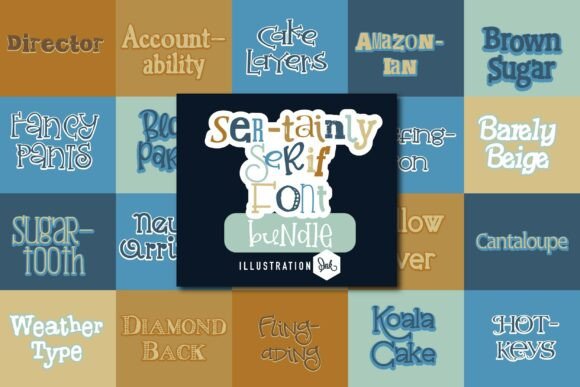
Sertainly Serif for Branding Projects
I was staring at a blank brand board the other day, trying to find that perfect font that would capture the essence of a new local café. The client wanted something warm, inviting, and slightly nostalgic—something that felt like a handwritten note from a friend. That’s when I stumbled upon Sertainly Serif, and it immediately felt like the right fit.
This hand-crafted font bundle contains 20 font families of hand-crafted serif fonts, with over 120 variations. What caught my attention was how each serif seemed to carry a story, like they were drawn by hand rather than generated by software. It had that effortless charm I was looking for, and the versatility made me think about how it could work across different parts of the brand identity.
A Font with Personality
One of the first things I noticed about Sertainly Serif is its visual character. The serifs are gently rounded, giving it a softness that feels approachable. There's a slight slant in some of the letterforms that adds movement, which makes it feel dynamic without being too flashy. This is a font that can easily transition from a logo to packaging or even social media graphics.
The mood of Sertainly Serif is warm and inviting. It has this subtle elegance that works well for brands that want to feel both professional and personable. Whether it's used on a shop sign or a product label, it carries a sense of craftsmanship that aligns perfectly with small businesses and creative studios.
Testing the Font in Real Design Scenarios
I started by testing it on a logo draft. The café name, "Morning Brew," looked great in a heavier weight of Sertainly Serif. It gave the logo a strong presence while still feeling friendly. Then I moved on to mockups of packaging design—coffee bags, mugs, and signage. Each time, the font added a touch of sophistication without overwhelming the visuals.
For digital use, I placed it on the homepage hero section of a website mockup. The font read well at larger sizes, making it ideal for headlines. Even at smaller sizes, it maintained good readability, which is crucial for body text on websites and printed materials alike.
I also experimented with using it on Instagram posts and flyers. In these cases, I paired it with a sans serif font for contrast. The combination worked well, creating a balance between tradition and modernity. For instance, using Sertainly Serif for headlines and a clean sans serif for supporting text helped establish clear visual hierarchy.
Font Pairing and Practical Use
When working with Sertainly Serif, I found that pairing it with a complementary sans serif font like Montserrat or Open Sans created a balanced look. The contrast between the two styles allowed for a more dynamic composition, especially in editorial design or web headers.
It's worth noting that Sertainly Serif includes multiple weights and styles, which means there's a lot of flexibility. I used lighter weights for subheadings and heavier ones for logos. The included alternates and ligatures added an extra layer of detail, making the typography feel more refined.
For clients who need multilingual support, I checked the font bundle and found that most of the fonts include Latin characters, which covers a wide range of languages. This makes it suitable for international branding projects as well.
Design Observations and Recommendations
One thing I noticed was how well Sertainly Serif performed on business cards and label stickers. The fine details of the serifs didn't get lost when printed at small sizes, which is often a challenge with decorative fonts. It also looked great on merchandise like aprons and branded cups, adding a personal touch to the café's brand identity.
Overall, Sertainly Serif has become a go-to font for me when working on branding projects that require a touch of elegance and warmth. Its versatility allows it to shine in both digital and print environments, making it a valuable asset for any designer's toolkit.